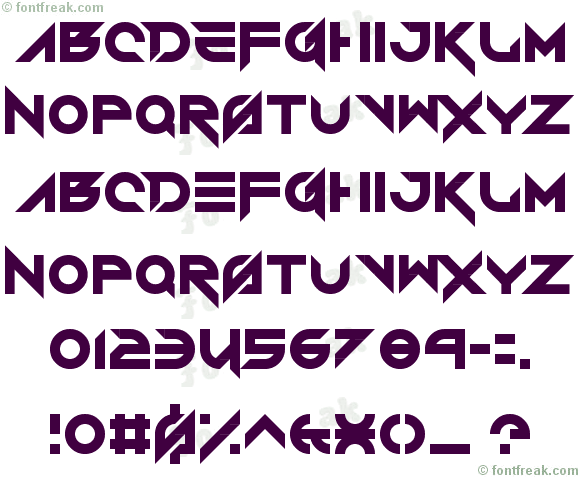
Vermin Vibes Roundhouse Regular
Vermin Vibes Roundhouse Regular, created by Andrew McCluskey in 2013, is a striking display font that falls within the decorative category. This font captures attention with its unique visual style characterized by bold, angular shapes and a playful yet edgy vibe. The stroke weight is relatively consistent throughout, giving it a robust appearance, while the lack of contrast adds to its modern appeal. The spacing between characters is carefully considered, ensuring legibility without sacrificing the font's distinctive flair. The decorative elements, including sharp angles and unconventional letterforms, contribute to its captivating personality.
This font is perfect for a variety of creative projects. It shines in applications such as movie posters, where its boldness can grab the audience's attention. Additionally, it works well for branding initiatives, particularly for businesses in the entertainment or streetwear industries, where a contemporary edge is essential. Vermin Vibes Roundhouse Regular is also an excellent choice for event promotions, making flyers and posters stand out with its unique character. Furthermore, it can add a distinctive touch to artistic portfolios, showcasing creativity and originality.
What sets Vermin Vibes Roundhouse Regular apart is its ability to blend boldness with creativity, making it a versatile choice for anyone seeking to make a statement. Its unique design elements ensure that it will leave a lasting impression, making it an excellent choice for anyone looking for a Vermin Vibes Roundhouse Regular font free download to elevate their design projects.